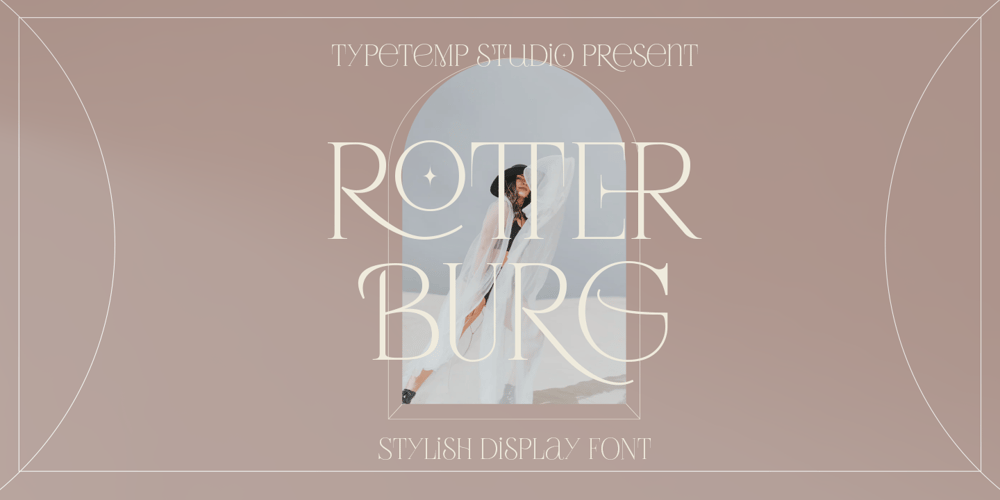
Rotterburg Stylish Font Family was designed by Egi Ahmad Mufid and published by Typetemp Studio. Rotterburg Stylish contains 1 styles and family package options. Rotterburg Stylish Display is Serif Display with upper and lowercase is complemented by some of the same alternatives made with love. Access your OpenType features to access the large selection of alternate letters and ligatures, select the letters you like from the large variety to get the display font you like.This font with alternatives, ligatures, and multilingual support. Perfect for editorial projects, Logo design, Clothing Branding, product packaging, magazine headers, or simply as a stylish text overlay to any background image.Features : Uppercase and Lowercase Stylistic Alternates & Ligatures Numerals & Punctuation Multilanguange PUA Encoded Web Font Included Language Support • English, French, Italian, Spanish, Portuguese, German, Swedish, Norwegian, Danish, Dutch, Finnish, Indonesian, Malay, Hungarian, Polish, Croatian, Turkish, Romanian, Czech, Latvian, Lithuanian, Slovak, Slovenian.Contact me with an inbox message If you have any question. Thank you! Happy Creating.